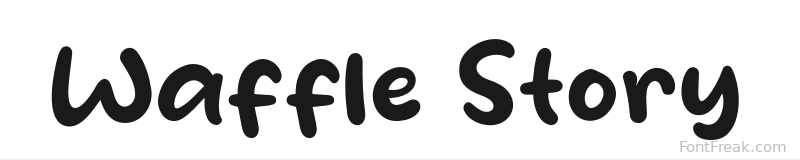
Waffle Story
Waffle Story, designed by Syaf Rizal, is a charming display font that falls into the decorative category. This playful typeface features rounded, whimsical letterforms with a friendly demeanor, making it perfect for capturing attention and conveying a sense of fun. The stroke weight is consistent, offering a smooth and approachable aesthetic, while the subtle contrast adds a touch of visual interest. The spacing between characters is well-balanced, ensuring clarity and legibility, even in larger text settings.
Best suited for creative projects, Waffle Story is an ideal choice for children's book covers, playful restaurant menus, and vibrant event posters. Its unique character makes it an excellent option for branding, especially for businesses targeting a younger audience or those aiming to present a friendly, inviting image. Graphic designers seeking to add a touch of whimsy to their projects will find this font particularly appealing. Additionally, content creators looking for a distinctive typeface for social media graphics will benefit from its engaging style.
What sets Waffle Story apart is its ability to evoke a sense of joy and nostalgia, reminiscent of childhood stories and playful adventures. This font stands out not only for its visual charm but also for its versatility across various applications. With its freeware license, the Waffle Story font free download offers an accessible option for anyone looking to enhance their design projects with a unique and lively typeface. Whether you are crafting a memorable invitation or a vibrant advertisement, Waffle Story provides the perfect touch to make your work stand out.